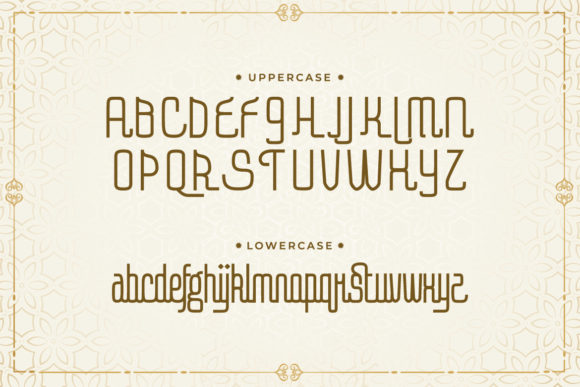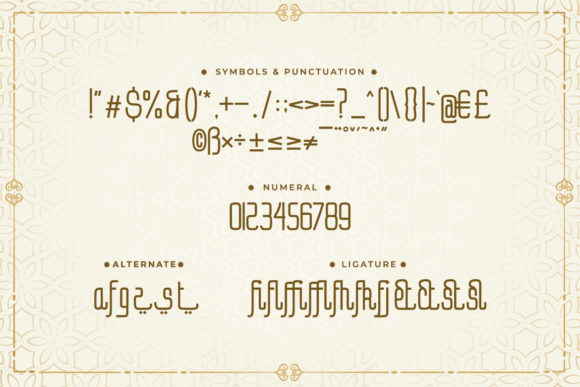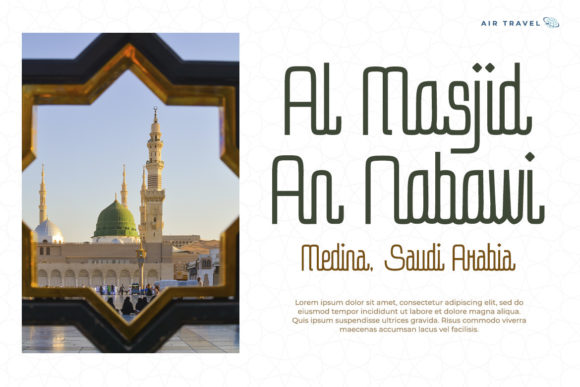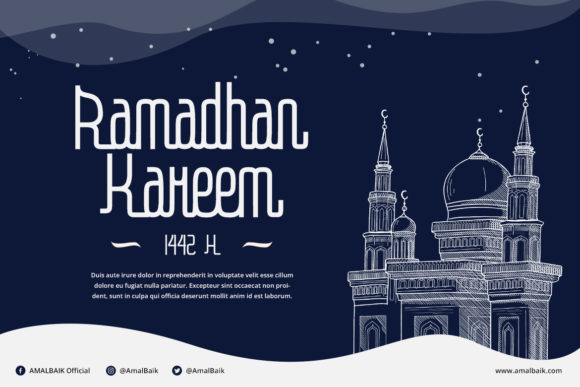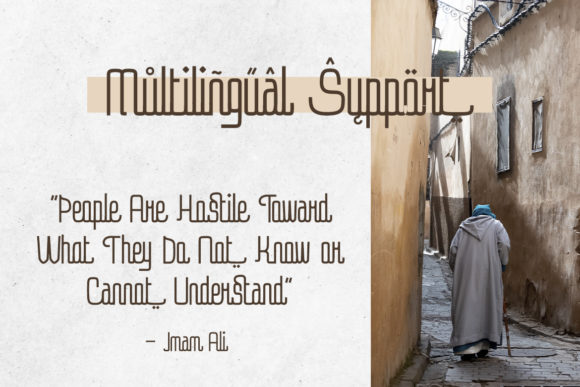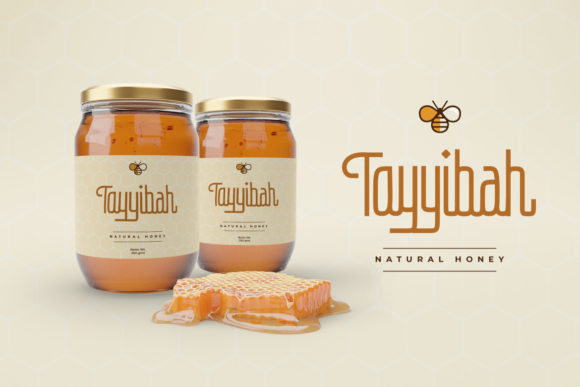
The Designer’s Delight: Uncovering the Magic of Amal Baik Font
I’ll never forget the time I was working on a food menu project for a trendy new restaurant. I had the concept, the colors, and the layout all figured out, but something was missing – the perfect font. I scrolled through my font library, but nothing seemed quite right. That’s when I stumbled upon Amal Baik, an incredibly unique, Arabic-inspired display font. It was love at first sight! ✨
What I Love About Amal Baik
- ✅ Unique and eye-catching design: Amal Baik is a showstopper, perfect for making a statement on any design project.
- ✨ Arabic-inspired flair: The font’s cultural inspiration adds an exotic touch to any design.
- 💡 Highly versatile: From food menus to posters, flyers, and prints, Amal Baik can elevate any project.
While Amal Baik is an amazing font, it’s not without its quirks. ⚠️ Some users may find that the font’s unique design can be overwhelming or difficult to read in large blocks of text. Additionally, the font’s stylistic alternates and glyphs may not work seamlessly with all design software or platforms.
The Story Behind Amal Baik
Amal Baik was designed by a talented team of typographers who drew inspiration from the rich cultural heritage of Arabic calligraphy. The font’s unique design combines traditional Arabic motifs with modern typographic elements, making it a standout in any design project. While the designer’s exact story may be shrouded in mystery, their passion for typography and cultural exchange is evident in every detail of Amal Baik.
| What is Amal Baik font? | Amal Baik is an Arabic-inspired display font, perfect for making a statement on any design project. |
| Is Amal Baik suitable for body text? | While Amal Baik is a beautiful font, it’s best suited for headlines and titles. Its unique design may be overwhelming for large blocks of text. |
| Does Amal Baik support OpenType features? | Yes, Amal Baik supports OpenType features, including stylistic alternates and glyphs. You can access these features in compatible design software, such as Adobe Photoshop and Illustrator. |